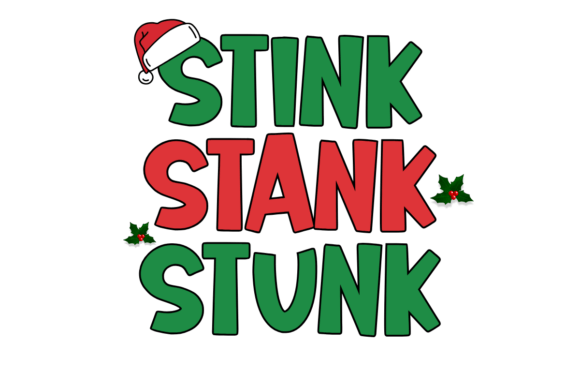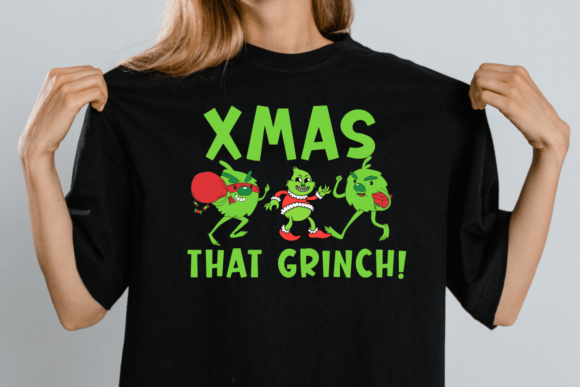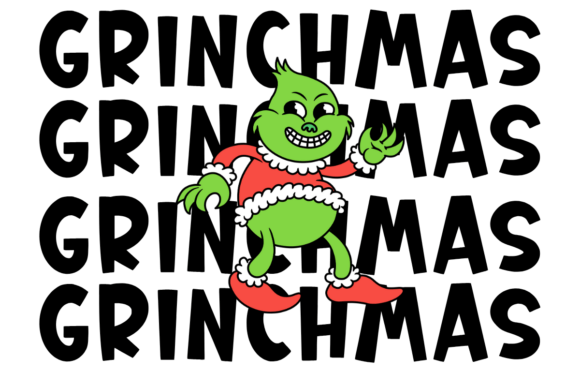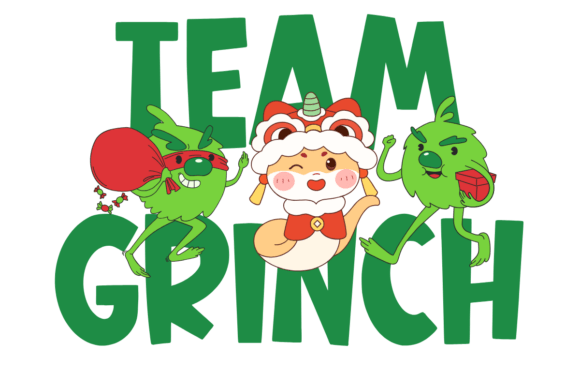
Introducing Grinched Snubnose Font: The Ultimate Display Font for Creative Projects
Are you tired of using the same old fonts for your creative projects? Look no further! Grinched Snubnose Font is here to bring a burst of character and charm to your designs. This bold, playful display font is perfect for adding a fun and friendly vibe to your projects, making it a must-have addition to your font library.
What Makes Grinched Snubnose Font So Special?
Grinched Snubnose Font is a unique and eye-catching font that stands out from the crowd. Its bold and playful design makes it perfect for a wide range of creative projects, from planners and greeting cards to party invites and seasonal decorations. Whether you’re designing for Easter, Halloween, Christmas, back to school, weddings, or kids’ merchandise, this font adds a cheerful touch that is sure to delight.
Grinched Snubnose Font is incredibly versatile, making it perfect for a wide range of design applications. Here are just a few ideas to get you started:
- Posters and Banners: Create eye-catching posters and banners for events, promotions, or announcements that are sure to grab attention.
- Blogs and Social Media Graphics: Add a playful touch to your blog posts and social media graphics, making them stand out in a crowded online space.
- Apparel and Merchandise: Design fun and playful apparel and merchandise for kids and adults alike, perfect for parties, special events, or everyday wear.
- Party Invites and Decorations: Create custom party invites and decorations for Easter, Halloween, Christmas, and more, that are sure to delight kids and adults alike.
- Planners and Greeting Cards: Add a personal touch to your planners and greeting cards, making them extra special for the recipient.
Why Choose Grinched Snubnose Font?
So why choose Grinched Snubnose Font for your creative projects? Here are just a few reasons:
- Unique and Eye-Catching Design: Grinched Snubnose Font has a bold and playful design that is sure to stand out in any design application.
- Highly Versatile: This font is perfect for a wide range of design applications, from posters and banners to party invites and decorations.
- Perfect for Kids’ Projects: The playful and fun design of Grinched Snubnose Font makes it perfect for kids’ projects, including party invites, decorations, and merchandise.
Tips for Using Grinched Snubnose Font
Here are a few tips for using Grinched Snubnose Font in your creative projects:
- Experiment with Different Sizes: Grinched Snubnose Font looks great in a variety of sizes, from small and delicate to large and bold.
- Pair with Other Fonts: Try pairing Grinched Snubnose Font with other fonts to create a unique and eye-catching design.
- Use for Headings and Titles: Grinched Snubnose Font is perfect for headings and titles, adding a playful touch to your designs.
- Get Creative with Colors: Try using Grinched Snubnose Font in a variety of colors to add an extra pop of personality to your designs.
Grinched Snubnose Font is a bold, playful display font that is perfect for adding a fun and friendly vibe to your creative projects. With its unique and eye-catching design, highly versatile applications, and easy-to-use format, this font is a must-have addition to your font library. Whether you’re a designer or crafter, Grinched Snubnose Font is sure to delight and inspire your creative projects.